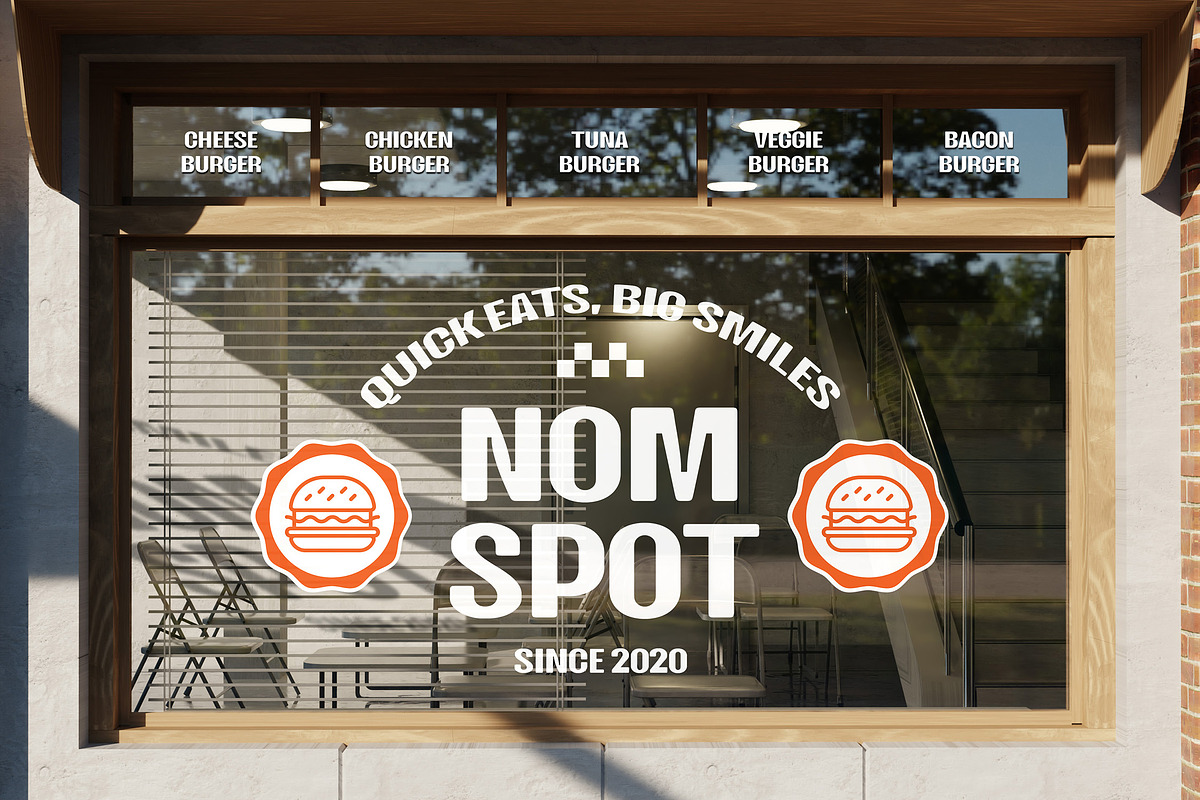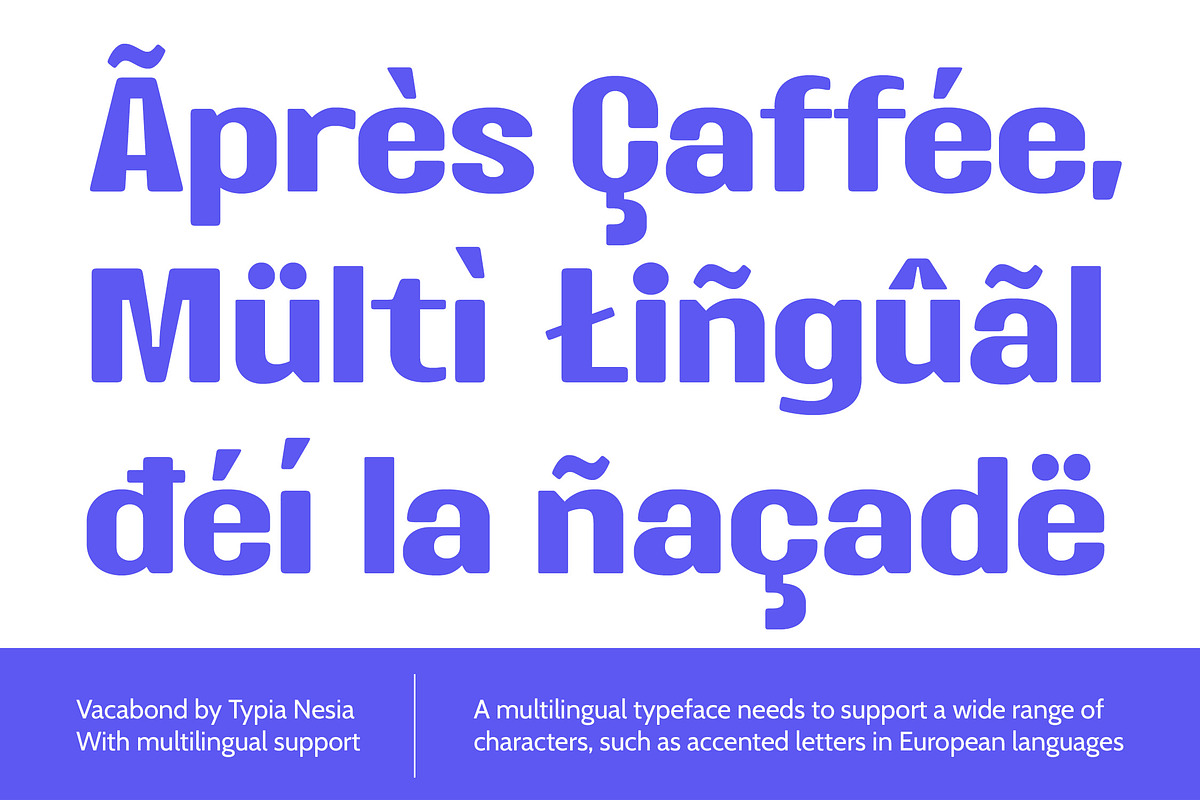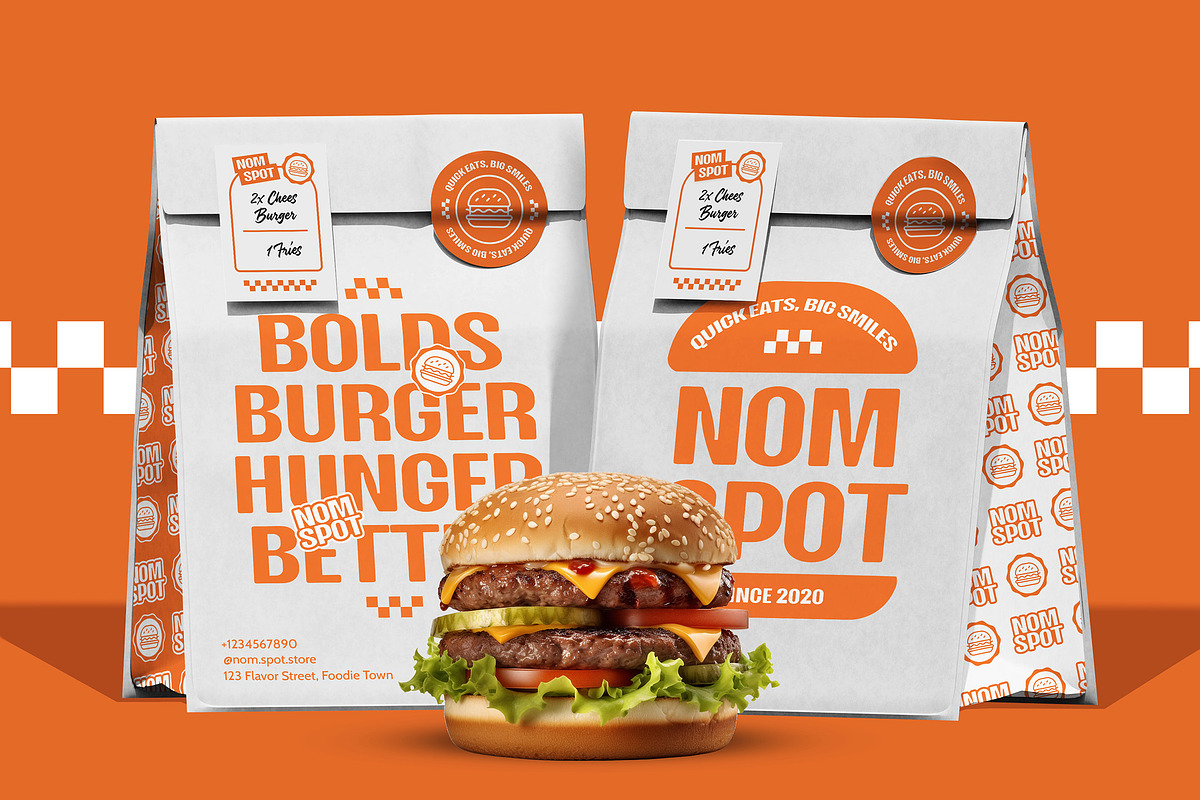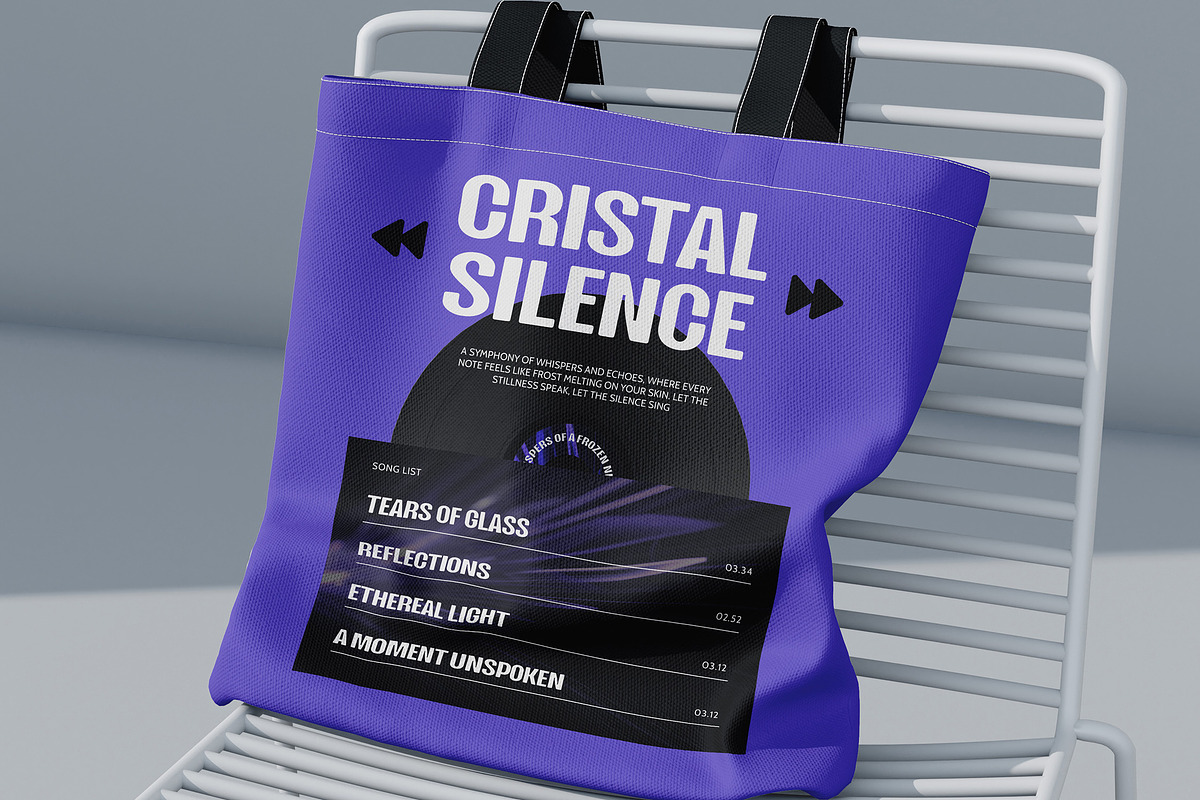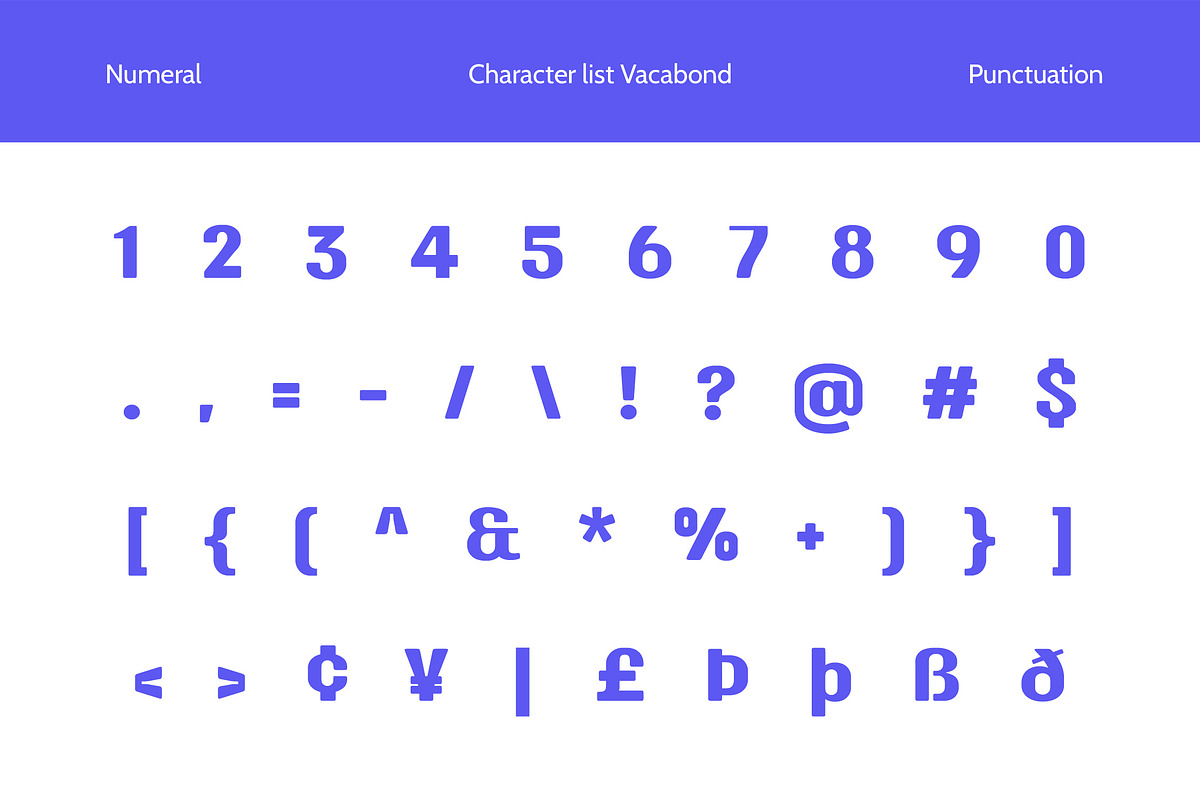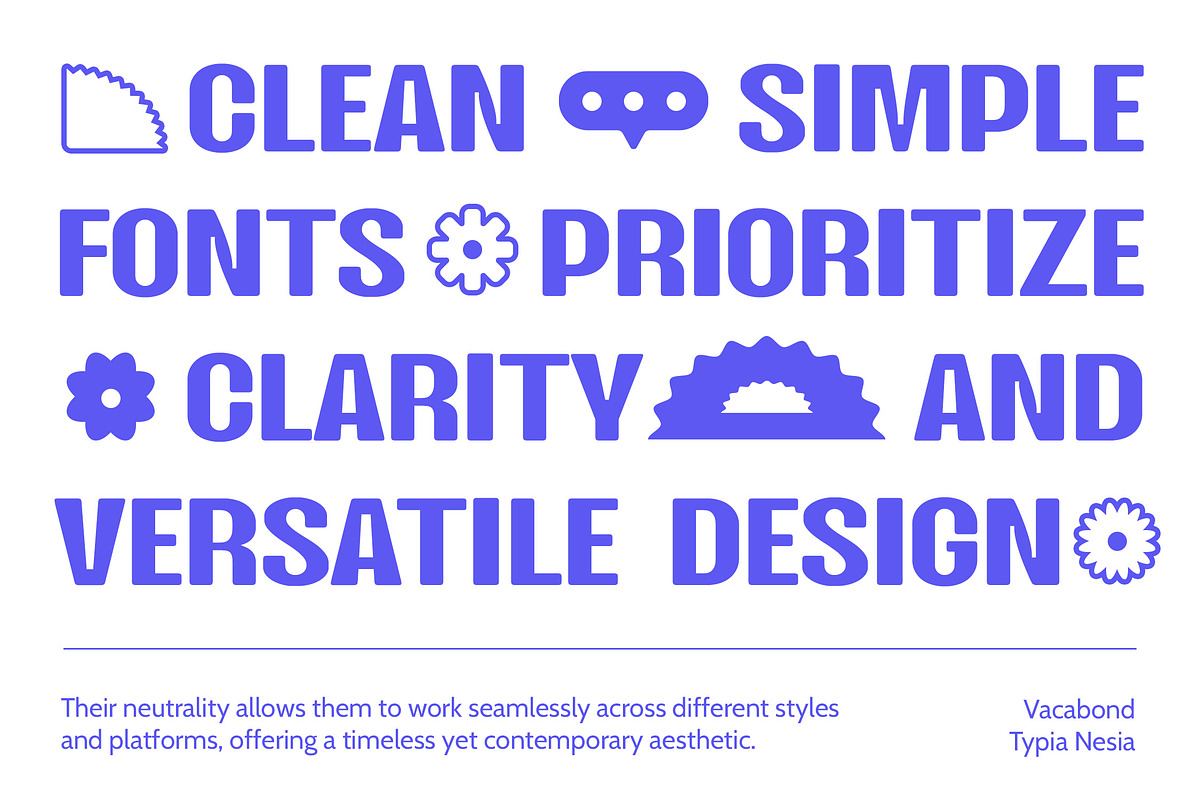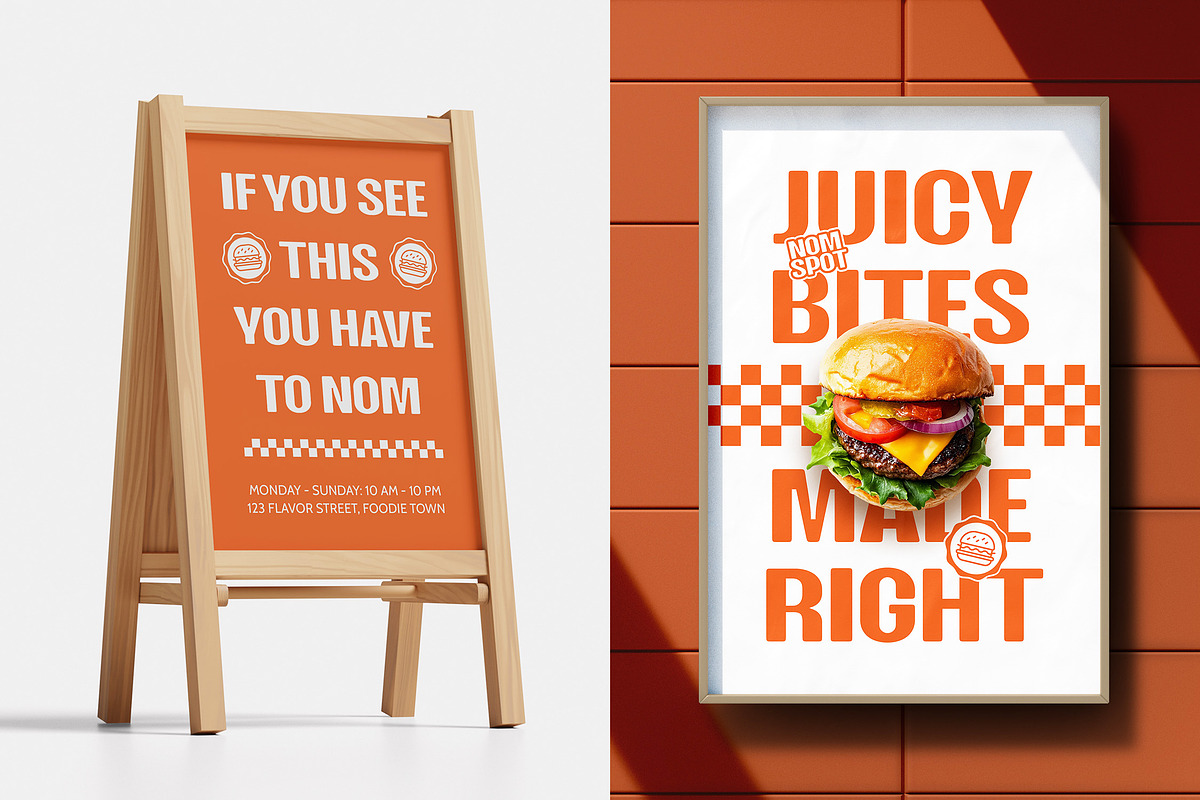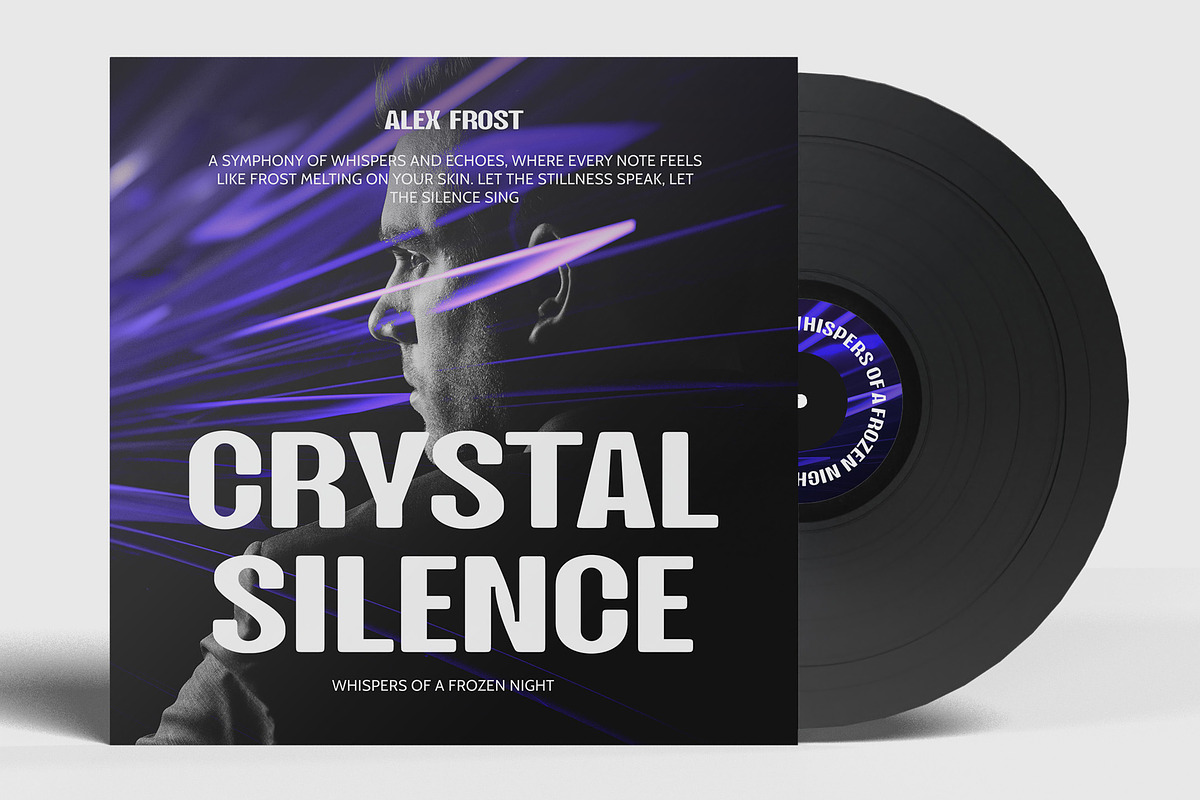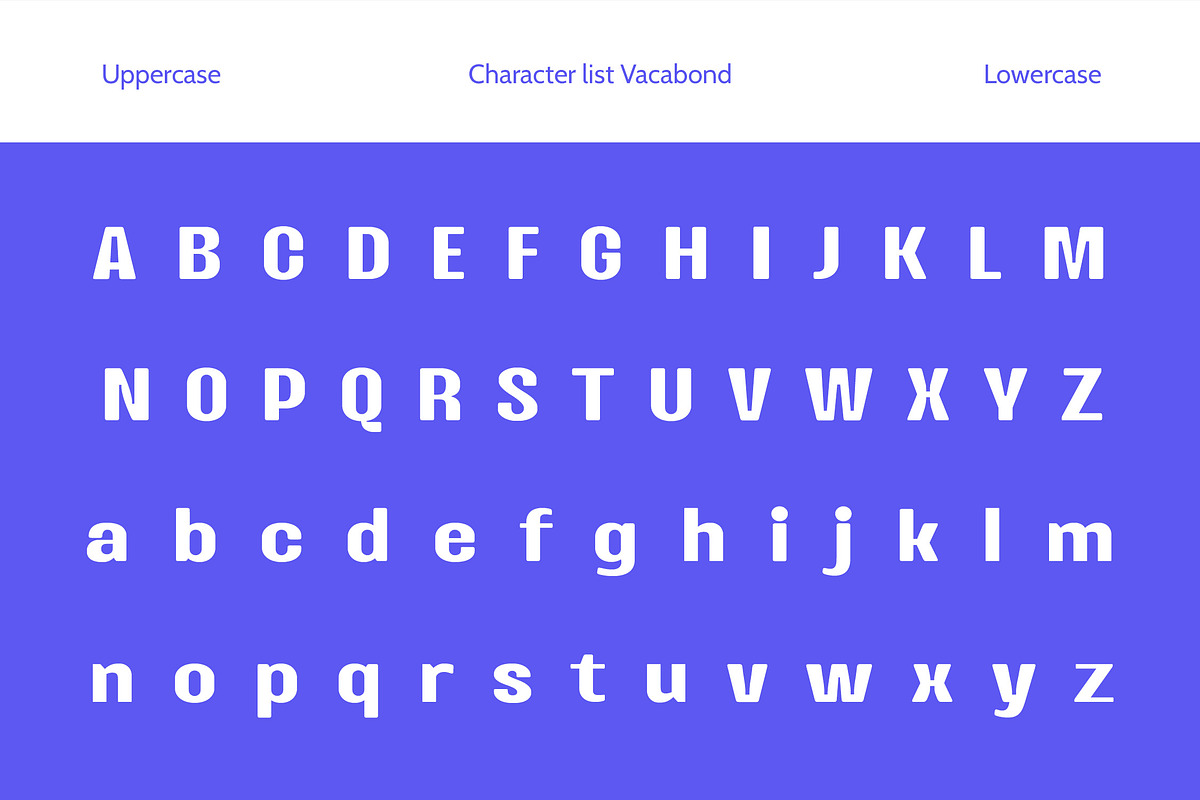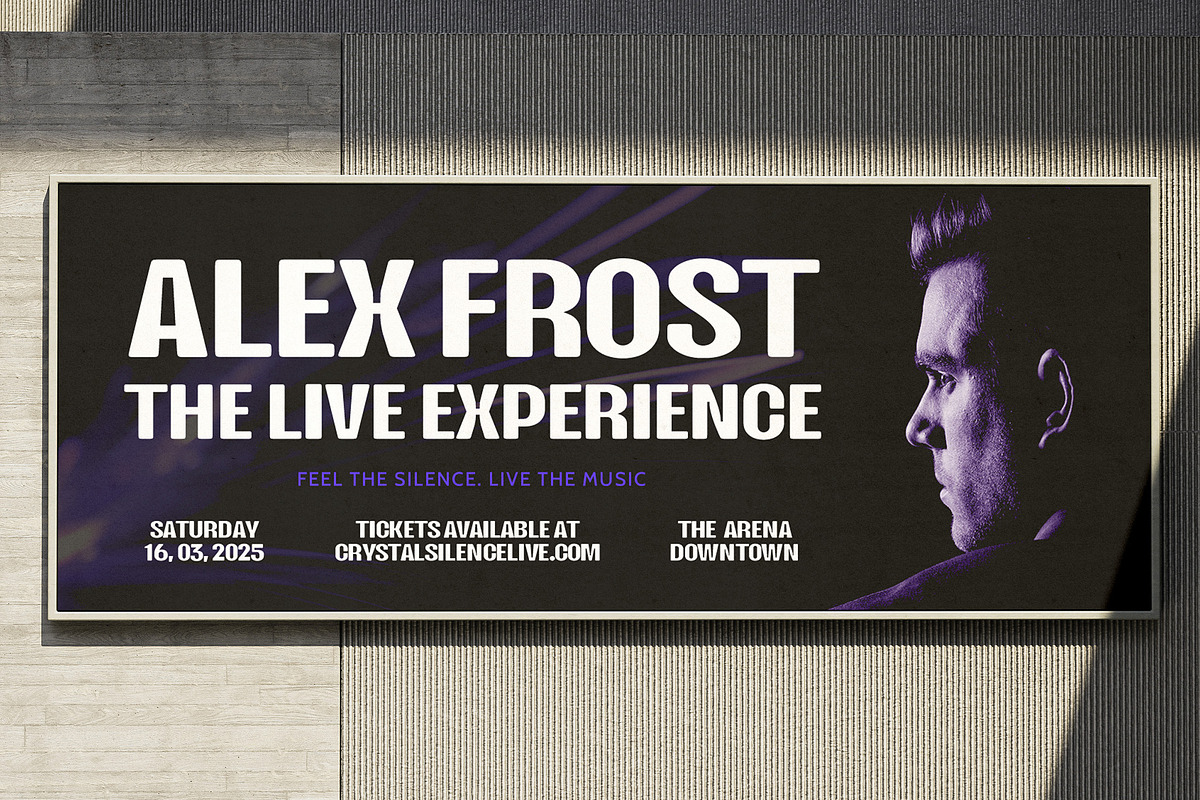
Vacabond - Modern Display Sans Serif
Vacabond - Modern Display Sans Serif - Bold Simple Clean Font
Vacabond, a bold and versatile Display Sans Serif font designed to make a statement. With its clean lines and modern aesthetic, Vacabond strikes the perfect balance between contemporary and eye-catching impact. This font Ideal for branding, advertising campaign, logos, posters, headlines, packaging, web design, social media graphics, signage, editorial layouts, and anymore. Its strong yet adaptable nature makes it suitable for modern projects. Comes with uppercase and lowercase letters, punctuation, and numerals, providing ample design flexibility. With multilingual support, Vacabond enables seamless typography across different languages and regions. Designed for bold branding and impactful design, Vacabond is perfect for creatives who seek versatility and strength in typography. Whether you're crafting a modern brand identity or designing an attention-grabbing headline, this font delivers with confidence.